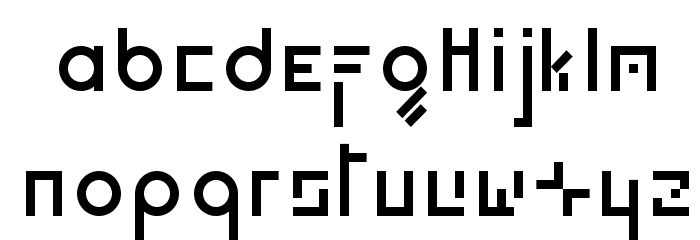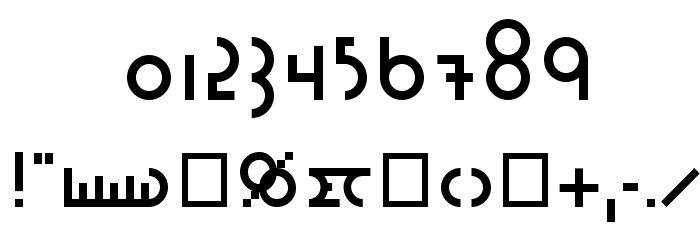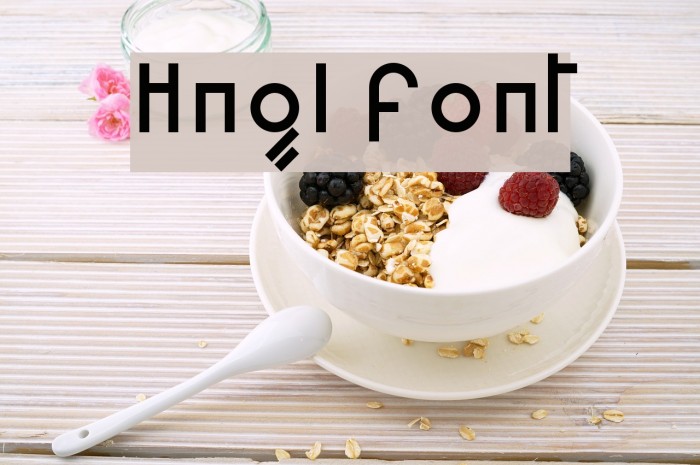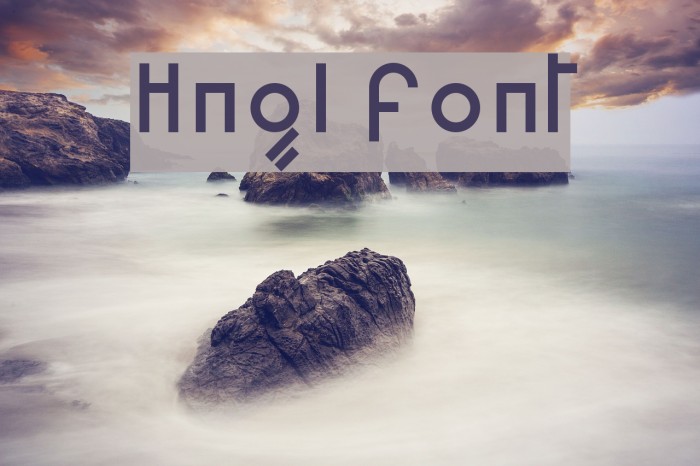
hngl Font
This font features a unique and modern design with geometric shapes and unconventional forms. The characters are bold and have a futuristic appearance, with a consistent stroke width that gives it a uniform look. The uppercase letters have a distinct style with rounded edges and some characters incorporating unexpected angles and curves. The lowercase letters maintain the geometric theme, offering a cohesive and visually striking appearance. Numbers and special characters follow the same design principles, ensuring a harmonious overall look. This font stands out with its creative and artistic flair, making it suitable for projects that require a modern and edgy touch.
A bold, geometric font with a futuristic and artistic design.